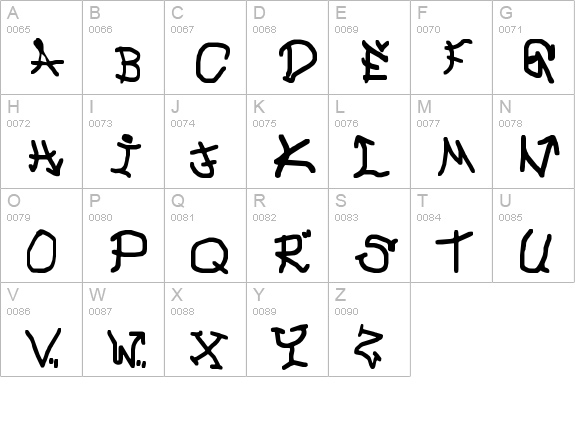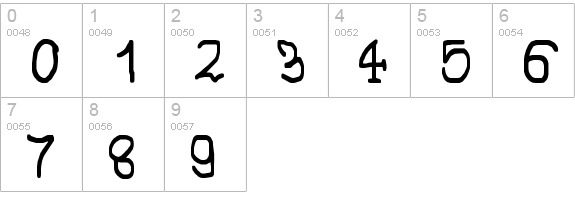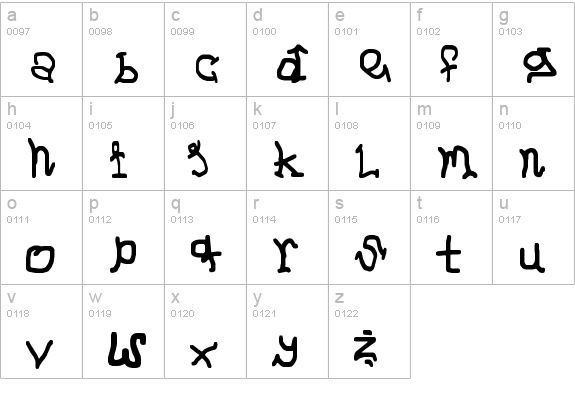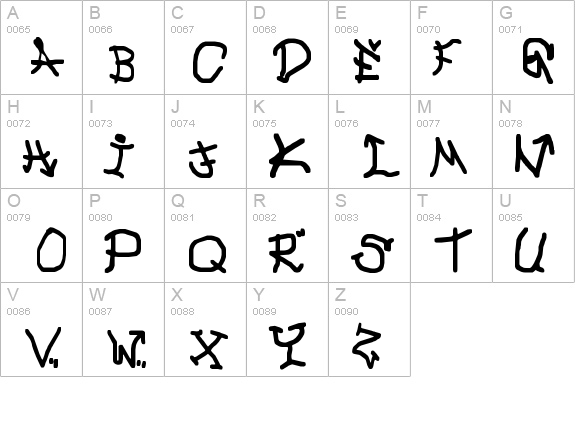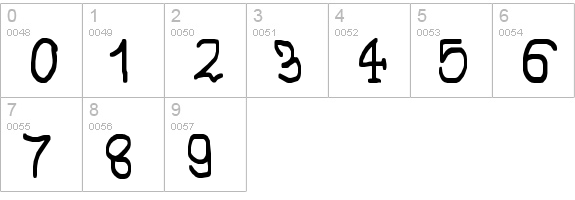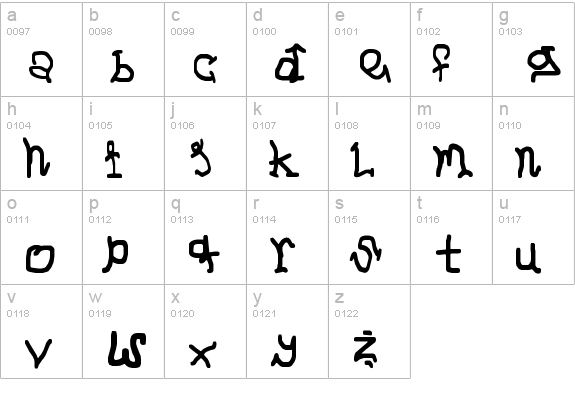
GMAFF Shit Font Details
Introducing the GMAFF Shit font, a bold and quirky typeface that is sure to make a statement in any design project. This unique font features playful, hand-drawn lettering with a touch of irreverence. GMAFF Shit is perfect for adding a fun and edgy vibe to posters, social media graphics, branding materials, and more. And the best part? GMAFF Shit is completely free to download! You can easily get your hands on this eye-catching font at FontsMarket.com, where you'll find a wide range of free and premium fonts to suit all your creative needs. Don't miss out on the opportunity to add GMAFF Shit to your font collection and unleash your creativity today!